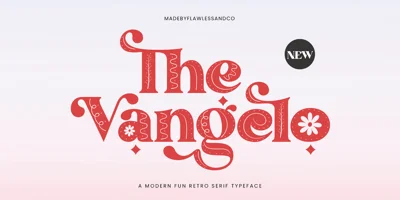
The Vangelo Font
The Vangelo Font is perfect for religious institution branding, sacred text publications, spiritual retreat center communications, faith-based educational materials, ecclesiastical ceremony programs, contemplative prayer book designs, religious art exhibition catalogs, divine service announcements, spiritual guidance materials, and reverent worship center signage.
What makes The Vangelo Font so exciting is its extraordinary ability to embody the sacred dignity and timeless spiritual authority of divine revelation through reverently crafted letterforms that seem illuminated by the same celestial light that guides sacred scribes and blessed with the kind of transcendent beauty that transforms ordinary words into vessels of spiritual truth and divine inspiration. This font captures the essence of sacred tradition and ecclesiastical excellence, featuring solemnly dignified characters that appear inscribed by devoted scholars who understand that typography used for sacred purposes must reflect the profound reverence and spiritual authority required when communicating divine messages. The reverently structured letter shapes create an atmosphere of holy sanctuary and spiritual transcendence, making every word feel like it carries the weight of sacred scripture and the promise of connecting earthly readers with eternal truths that illuminate the path to spiritual understanding.
The The Vangelo Font family includes Light, Regular, Medium, Bold, and Sacred variations, along with ecclesiastical symbols and reverent decorative elements. Each style maintains the font's distinctive spiritual character while offering versatility for different religious applications, from gentle devotional text to commanding liturgical headlines that announce the celebration of sacred mysteries and divine revelation.
This sacred typeface brings authentic ecclesiastical aesthetics to contemporary spiritual design projects. The Vangelo Font provides designers with an invaluable resource for creating memorable religious identities that communicate reverence, spiritual authority, and divine authenticity. Whether you're developing religious institution branding, designing sacred publication materials, or creating worship center communications, this font delivers unmatched spiritual dignity and ecclesiastical credibility.
The divinely inspired letterforms in The Vangelo Font feature classical proportions and sacred geometry that mirror the architectural grandeur of great cathedrals and the theological precision that defines authentic religious scholarship and spiritual wisdom. Each character has been designed to maintain perfect legibility while expressing the profound reverence and spiritual authority that define genuine religious communication. The font's distinctive personality makes it ideal for applications requiring authentic ecclesiastical authority and sacred text credibility.
Religious and spiritual professionals appreciate how The Vangelo Font effortlessly communicates reverence, spiritual authenticity, and divine authority while serving congregations and faithful communities seeking genuine worship experiences that honor both sacred tradition and contemporary spiritual needs. The comprehensive character set includes religious symbols, ecclesiastical ornaments, sacred decorations, and extensive international language support, ensuring global compatibility while preserving its distinctive vangelo identity. This makes it an invaluable resource for churches, religious publishers, spiritual centers, and any organization seeking typography that embodies the fundamental values of sacred tradition, spiritual reverence, and the kind of divine beauty that transforms ordinary communication into expressions of faith that inspire worship, encourage devotion, and guide souls toward the eternal truths that provide meaning, purpose, and spiritual fulfillment through the timeless wisdom contained in sacred texts that continue to offer comfort, guidance, and hope to believers seeking to understand their relationship with the divine and their place in the eternal plan of salvation.